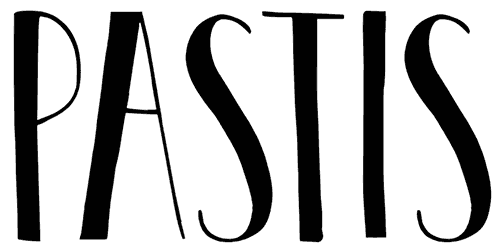
DK Pastis Font
An appealing example of sans serif fonts is DK Pastis. The elongation of designed patterns makes it a fantastic option for website beauty or wedding invitations, in detail for header images, vintage logos, and specific titles.
Actually, its design has been incomplete and lowercase letters are not prepared to use. This classic font is fantastic for classic cartoons with old themes.
Designed by: David Kerkhoff